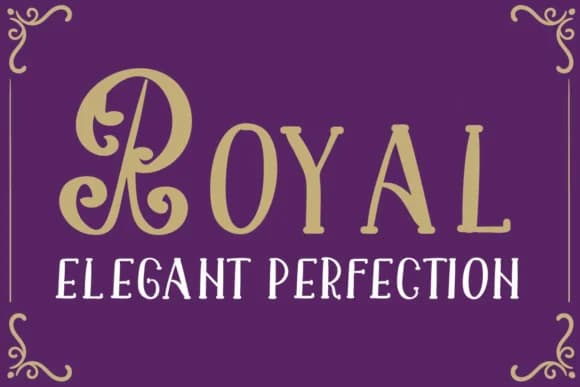
Royal Elegant Font by Lickable Pixels is a hand-lettered script that brings sophisticated charm through traditional calligraphic letterforms. This decorative typeface captures the refined elegance required for projects where classical aesthetics are paramount. The ornate capitals, meticulously detailed, serve as beautiful visual anchors within any layout, drawing attention while establishing hierarchy with graceful authority.
Perfect for wedding invitation suites, luxury cosmetics packaging, formal event announcements, and personalized monogrammed stationery, this script excels in upscale applications. Its hand-lettered quality provides authentic warmth and character, preventing designs from feeling sterile despite their formal nature. The distinctive capitals create natural focal points for highlighting names, initials, or featured text that deserves prominence. Each letterform was crafted to maintain strong legibility while preserving the expressive artistic quality essential to script typefaces.
Beyond invitations and stationery, Royal Elegant Font works beautifully for fine dining menus, luxury greeting cards, upscale brand logos, and sophisticated packaging design. The carefully rendered letterforms deliver the polished elegance that luxury and heritage brands require. Whether designing for established companies or creating bespoke materials for discerning clients, this typeface brings the refined sophistication every premium project deserves. Find Royal Elegant Font on Creative Fabrica and add hand-lettered elegance to your next sophisticated design.
Royal Elegant Font is a script font that shines as a display or heading face. Pair it with a clean sans-serif or serif font for body text β the contrast creates a clear hierarchy while the two styles stay balanced and easy to read.